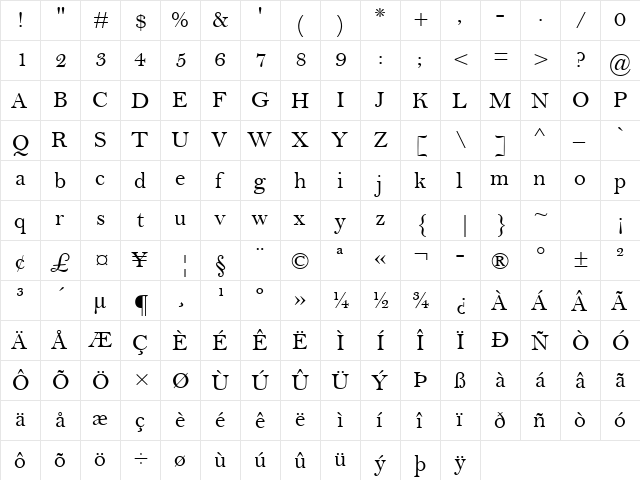
Bell MT Regular
Design Context for Bell MT Typeface
Bell MT offers clean, dependable letterforms without strong stylistic allegiance, making it a practical choice for designers who need flexibility.
Pro Tip: Pair Bell MT with a font of contrasting weight or personality to build a more expressive typographic hierarchy.